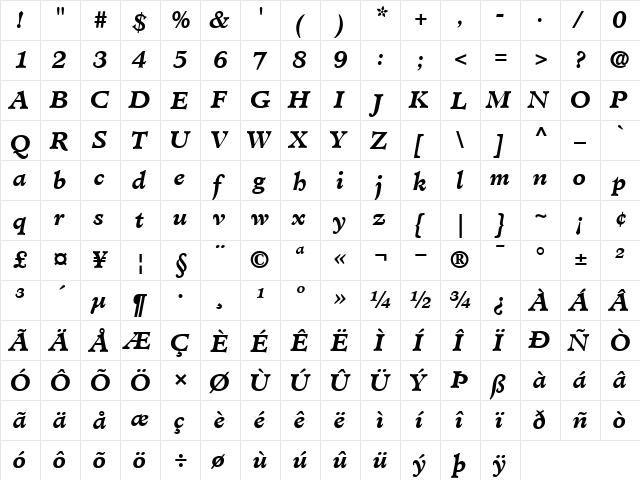
Minister BoldItalic
Design Context for Minister Typeface
Minister offers clean, dependable letterforms without strong stylistic allegiance, making it a practical choice for designers who need flexibility. The slanted form adds forward momentum and visual energy. Its bold stroke weight gives it real presence on the page.
Pro Tip: Try Minister for annotation and caption copy alongside an upright companion — the contrast in angle creates a dynamic but ordered typographic system.